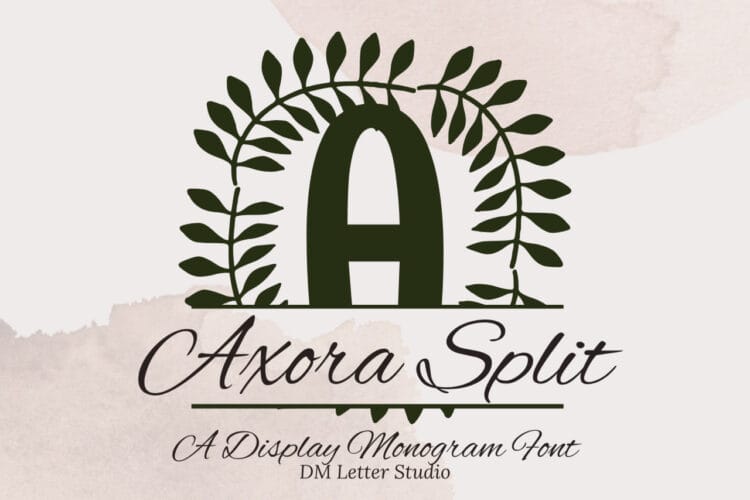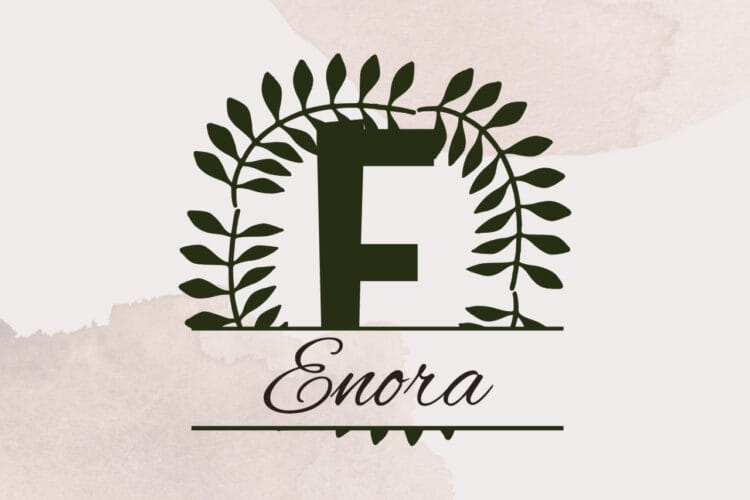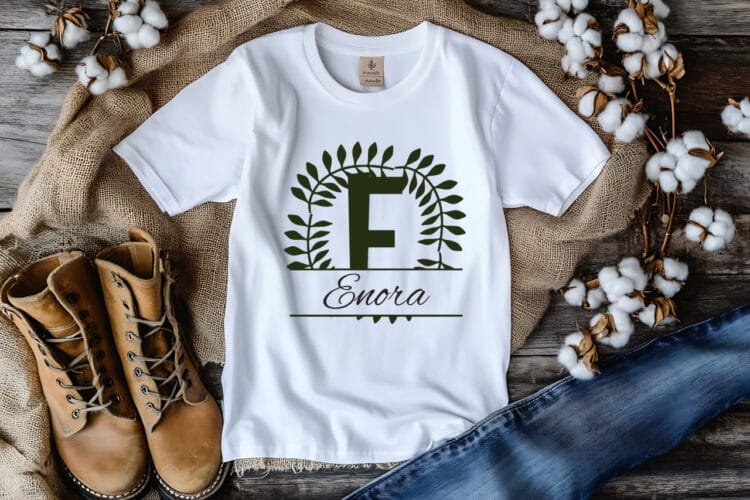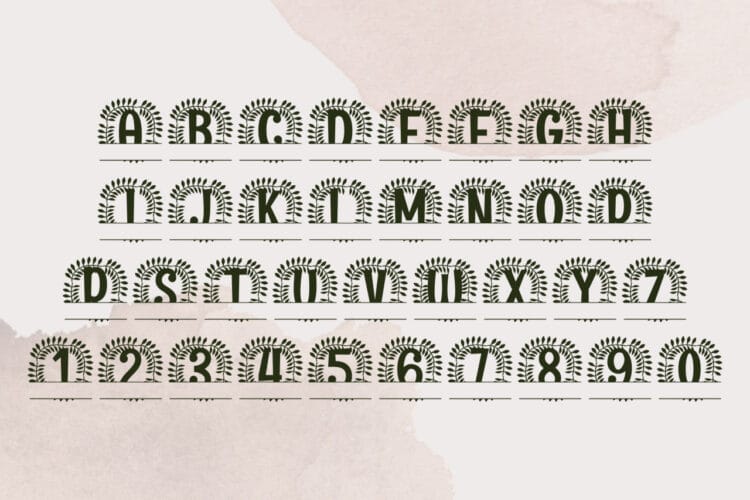
Meet Axora Split, the Split Monogram Font
Axora Split Monogram turns simple initials into clean, modern emblems with a crisp center split for names, dates, or short words. The strokes are smooth and balanced, so letters stay readable at any size. Because counters remain open, tiny tags stay sharp while large signs look premium and polished. Use it for wedding suites, boutique logos, keepsake gifts, wax seals, stationery, and premium packaging. As a result, your designs look personalized and high-end in minutes.
Fast layouts with Axora Split
Start with a bold split initial, then place a name, family title, or date across the center bar. After that, add supporting text in a modern serif or a clean sans. Because Axora Split holds shape at small sizes, cards, cartons, acrylic signs, and tags print cleanly and cut smoothly. In addition, the proportions love oval borders, thin dividers, minimalist frames, and subtle wreath accents, so full sets come together in minutes. Finally, save palette pairs like charcoal & ivory, navy & pearl, sage & cream, or champagne & black to repeat across your product line.
Creative uses and quick wins
Logo badges, shop marks, and product seals
Wedding monograms, place cards, and table numbers
Wax seals, ribbon tags, and keepsake boxes
Favor stickers, tissue labels, and thank-you cards
Split monogram initials built for quick personalization
Curves tuned for foil, letterpress, engraving, laser, vinyl, DTF, and sublimation
Design tips for Axora Split Monogram
Keep the center text short so the initial stays the hero. Also, increase tracking slightly for names on small labels to improve readability. For extra depth, add a thin inner stroke or a soft shadow behind the monogram on light backgrounds. For texture, try linen stocks, vellum wraps, or soft-touch papers. Finally, export at 300 DPI for print and at 2× size for web so edges stay smooth everywhere.